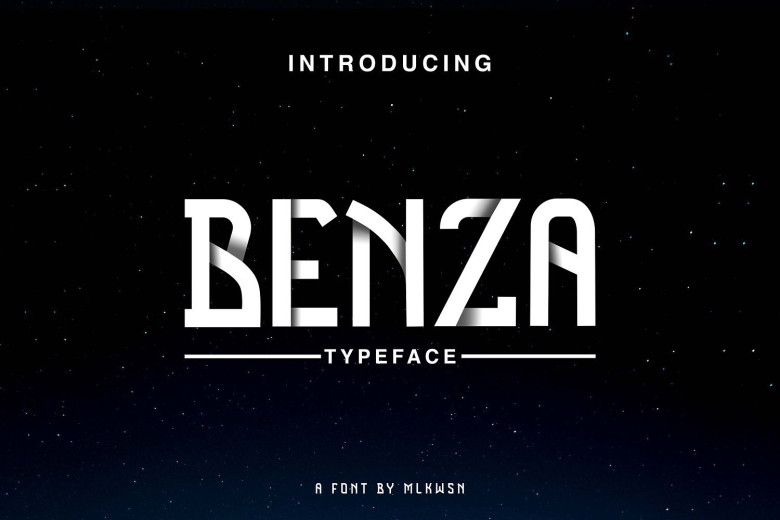
Benza Typeface
Thank you for viewing this font. It is a very impressive font display. Introducing Benza! It is designed and shared by MLKWSN studios. This font will be suitable for logo, branding projects, product packaging,quotes, book covers,greeting card and all your other lovely projects.